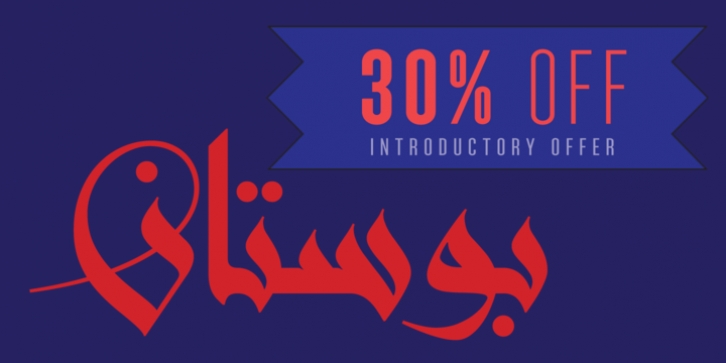
Bustan is a new Arabic display typeface inspired by Kairawani Kufic and cursive Sunbuli, notable for its compact compositions. Designed by Jamal Bustan and developed by Sakkal Design, Bustan has updated proportions and details, and is distinguished by its traditional serenity, modern aesthetics, and a rich set of letter variants.